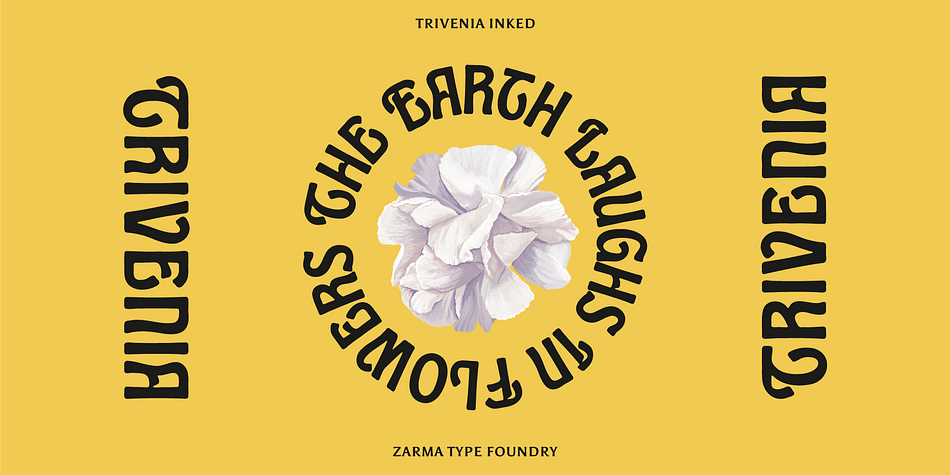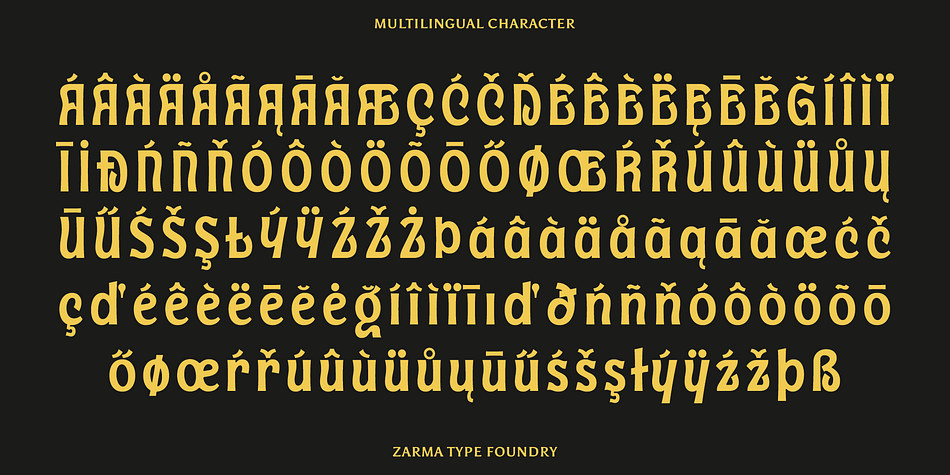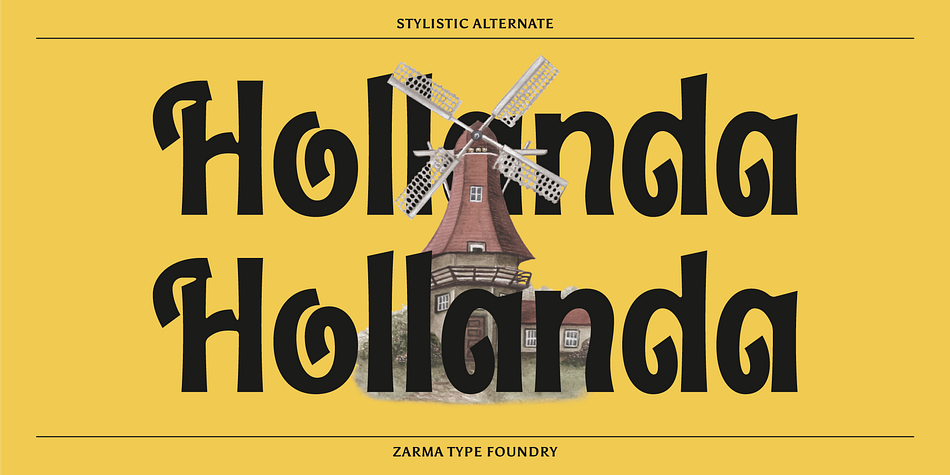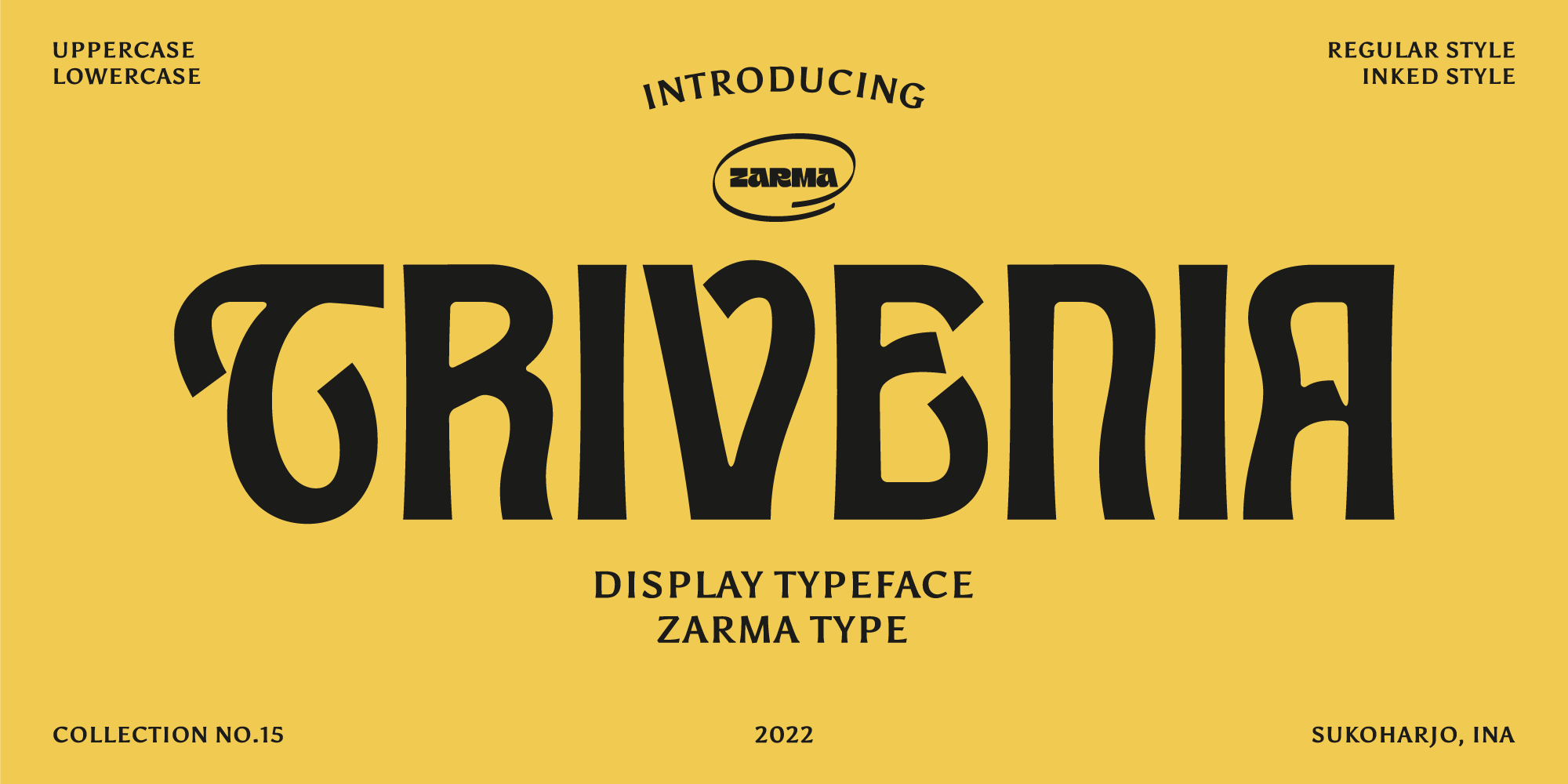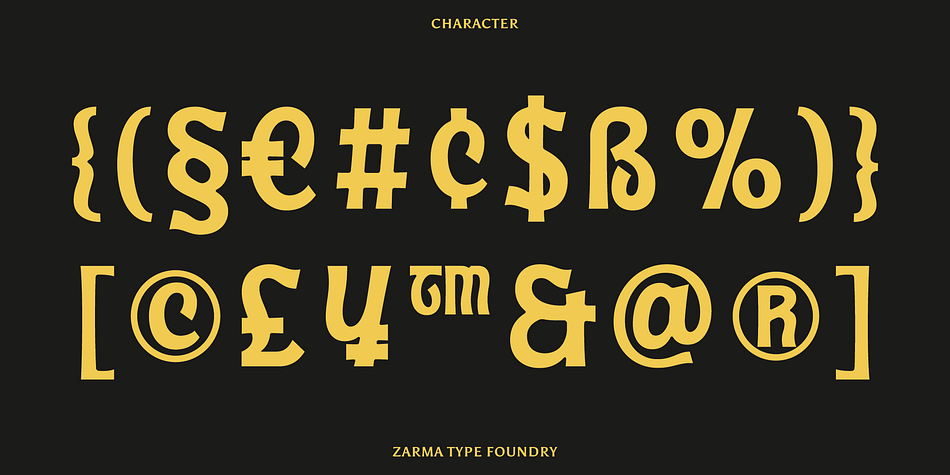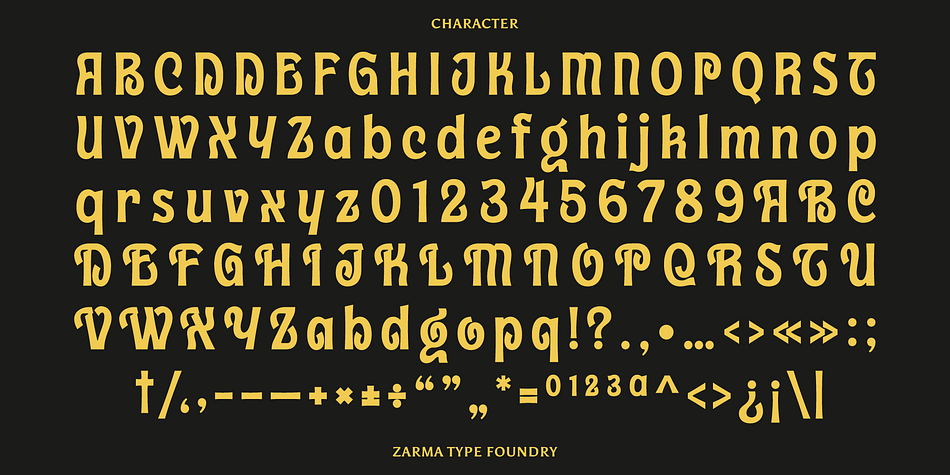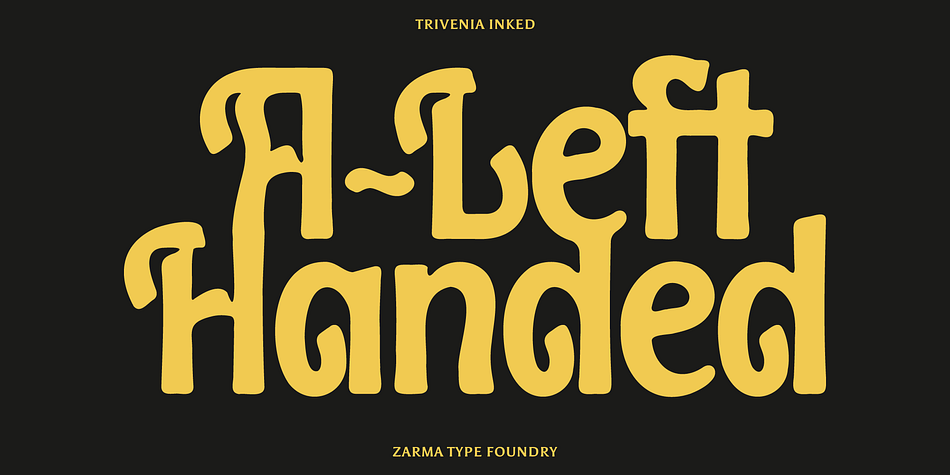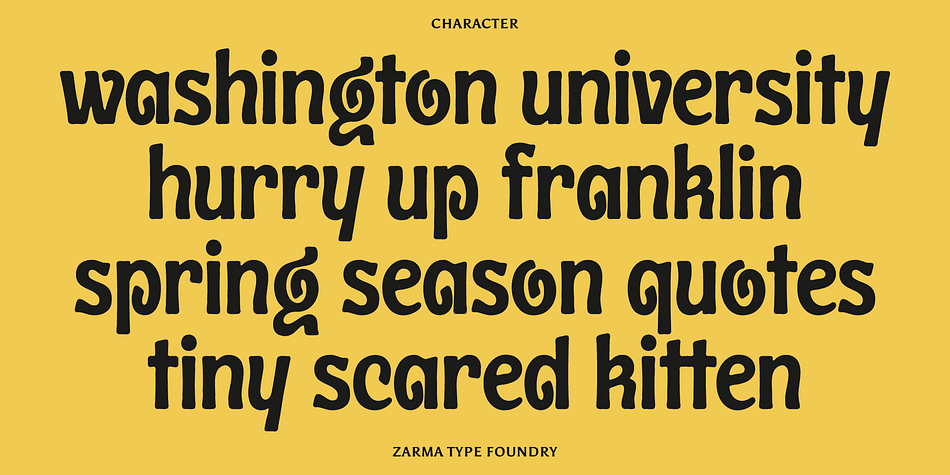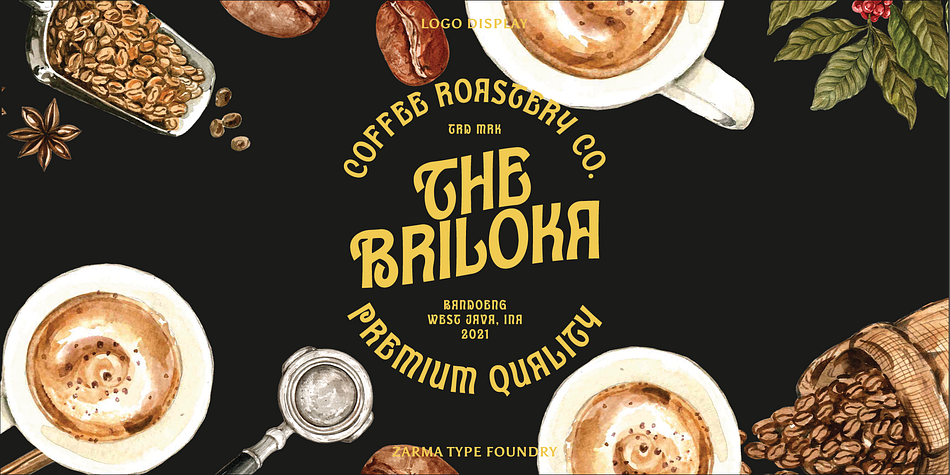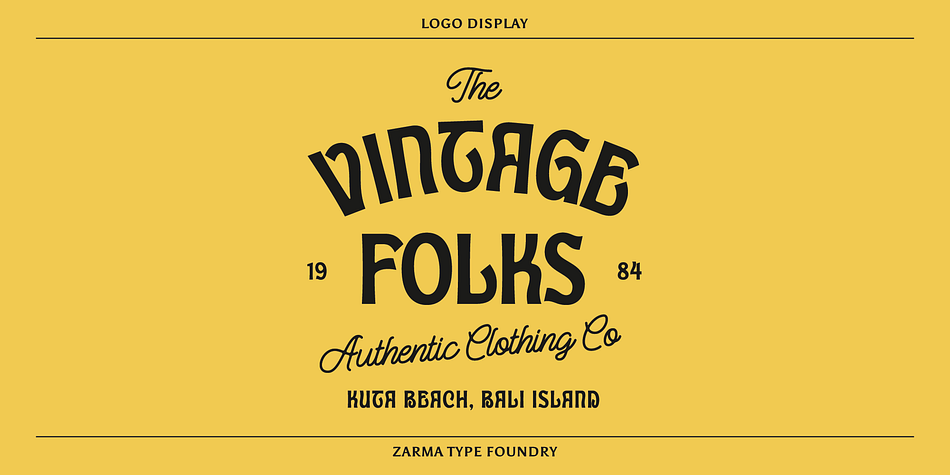
Trivenia
Trivenia is a retro font family. This typeface has two styles and was published by Zarma Type.
Introducing Trivenia, a display typeface inspired by such an amazing *Baldur Type Specimen”. It has a classic shape with a modern touch on its curves. Comes with 2 styles, regular and inked for you to be more creative in your project. Perfect for most any aspect of graphic design, from logo to layout designs. Check the display images for the list of included glyphs and how this font can be used.